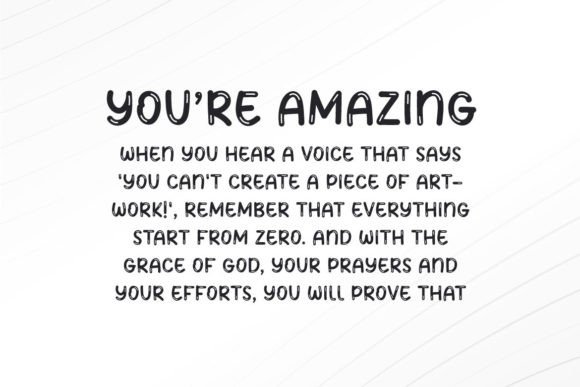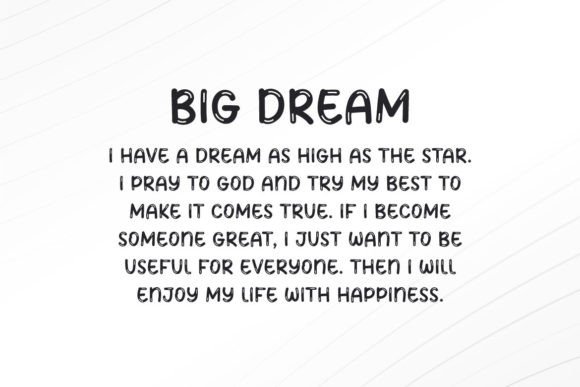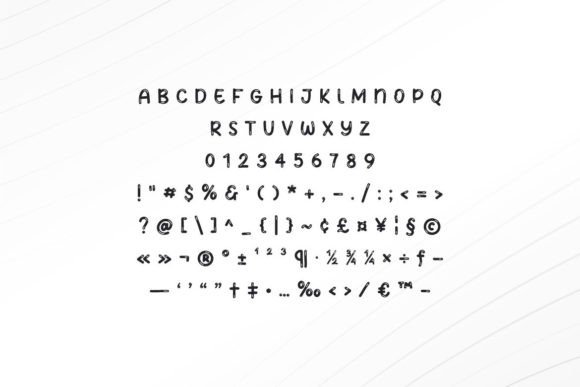
Introducing Glass On Font: The Ultimate Handwritten Font for Creative Projects
Are you a designer, crafter, or DIY enthusiast looking for a font that can add a touch of fun and playfulness to your creative projects? Look no further than Glass On Font! This handwritten font is perfect for a wide range of applications, from comic books and school projects to flyers, book titles, advertisements, social media content, logos, and more.
What is Glass On Font?
Glass On Font is a unique and eye-catching handwritten font that is designed to bring a sense of fun and playfulness to your creative projects. Its playful style makes it perfect for projects that require a personal touch, such as children’s books, educational materials, and craft projects.
Key Features of Glass On Font
- Handwritten style: Glass On Font has a distinctive handwritten style that gives it a personal and unique touch.
- Fun and playful: The font’s playful style makes it perfect for projects that require a fun and lighthearted approach.
- Versatile: Glass On Font can be used in a wide range of applications, from digital projects to print materials.
- Easily readable: Despite its playful style, Glass On Font is easily readable, making it perfect for body text and headings.
Use Cases for Glass On Font
Glass On Font is a versatile font that can be used in a wide range of creative projects, including:
- Comic books and graphic novels: Add a playful touch to your comic book or graphic novel with Glass On Font.
- School projects: Use Glass On Font to add a personal touch to school projects, such as presentations, posters, and reports.
- Kindergarten and educational materials: Glass On Font is perfect for educational materials, such as worksheets, activity sheets, and children’s books.
- Flyers and brochures: Use Glass On Font to create eye-catching flyers and brochures for events, promotions, and products.
- Book titles and covers: Add a touch of personality to your book title and cover with Glass On Font.
- Advertisements and social media content: Use Glass On Font to create engaging and playful advertisements and social media content.
- Logos and branding: Glass On Font can be used to create unique and memorable logos and branding materials.
Benefits of Using Glass On Font
Using Glass On Font in your creative projects offers a range of benefits, including:
- Unique and eye-catching design: Glass On Font’s playful style sets it apart from more traditional fonts.
- Personal touch: The font’s handwritten style gives your project a personal touch that can help connect with your audience.
- Versatility: Glass On Font can be used in a wide range of applications, making it a great addition to your font library.
Tips for Using Glass On Font
To get the most out of Glass On Font, here are a few tips to keep in mind:
- Use it sparingly: While Glass On Font is playful and fun, it can be overwhelming if used excessively. Use it sparingly to add emphasis and personality to your project.
- Pair it with other fonts: Glass On Font pairs well with other fonts, such as sans-serif fonts, to create visual interest and contrast.
- Experiment with colors and textures: Glass On Font looks great in a range of colors and textures, so don’t be afraid to experiment and find the perfect combination for your project.
Glass On Font is a unique and versatile handwritten font that is perfect for creative projects that require a fun and playful touch. With its key features, use cases, and benefits, Glass On Font is a great addition to any designer’s or crafter’s font library. Whether you’re working on a comic book, school project, or advertisement, Glass On Font is sure to bring a smile to your audience’s face.